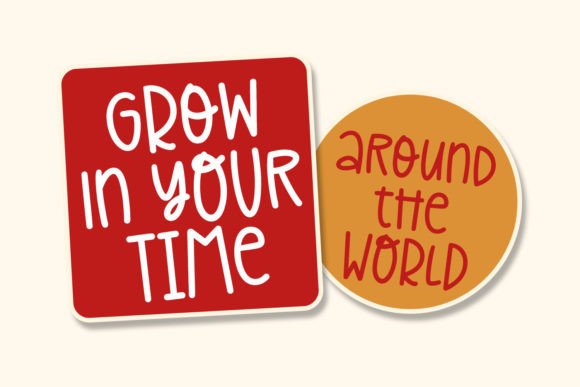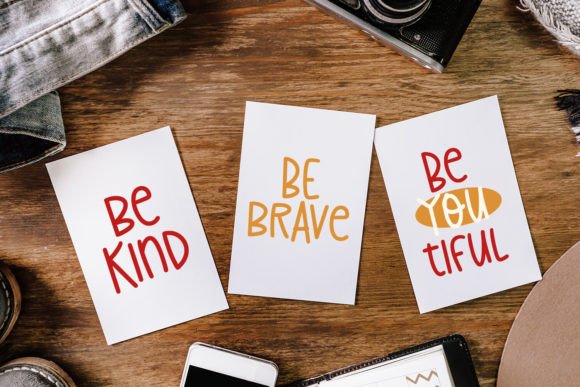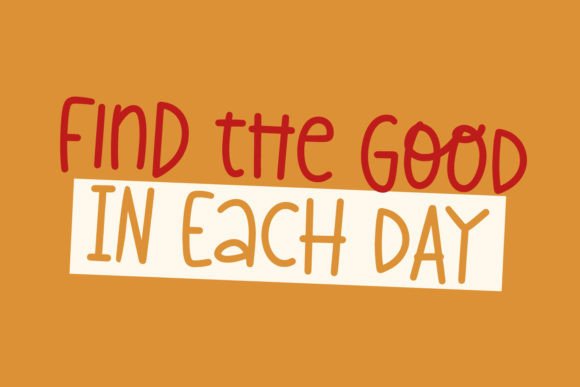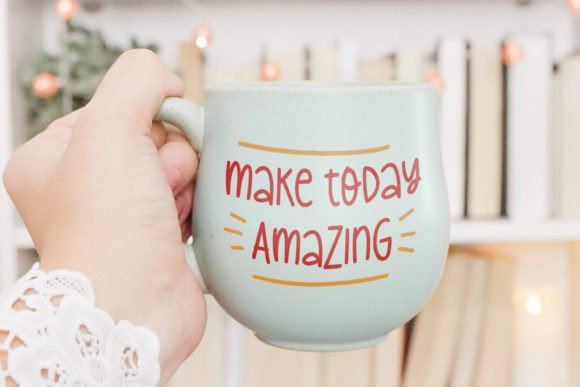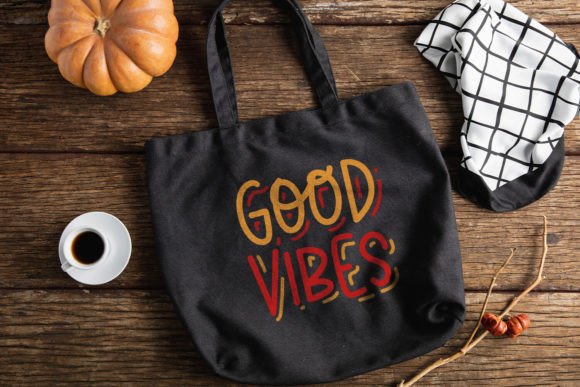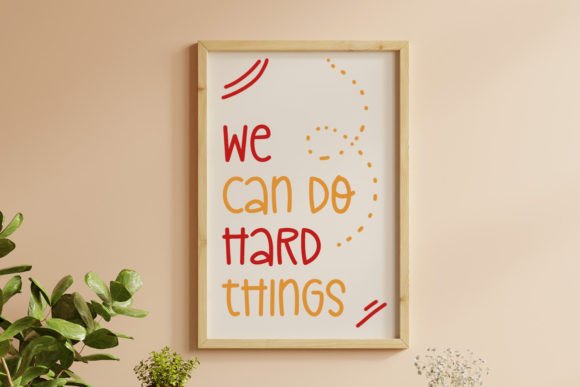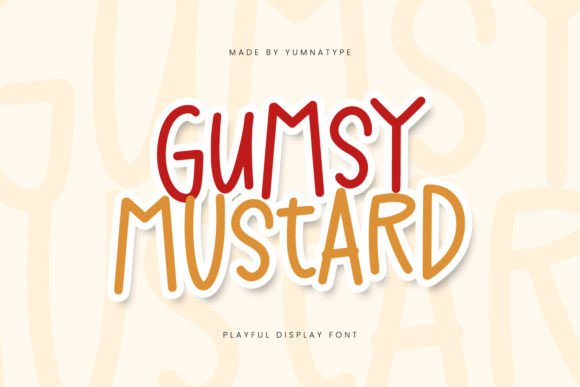
Gumsy Mustard Font: Add a Playful Touch to Your Designs
Are you looking for a font that can bring a dash of playfulness and whimsy to your designs? Look no further than the Gumsy Mustard font. This charming display font is perfect for designers and crafters who want to add a light-hearted touch to their projects. In this article, we’ll take a closer look at the Gumsy Mustard font, its features, and how you can use it to elevate your designs.
What is Gumsy Mustard Font?
Gumsy Mustard is a delightful display font that boasts a playful and carefree vibe. Its lightweight and low-contrast design make it an excellent choice for designers who want to create eye-catching and inviting visuals. The font’s simplicity is its greatest strength, making it perfect for use in a variety of design projects, from branding and advertising to packaging and crafting.
Key Features of Gumsy Mustard Font
So, what makes Gumsy Mustard font so special? Here are some of its key features:
- Lightweight design: Gumsy Mustard has a delicate and airy feel that makes it perfect for use in designs where you want to add a touch of elegance and sophistication.
- Low contrast: The font’s low contrast design ensures that it remains clear and legible, even at smaller sizes.
- Constant letter proportions: The font’s consistent letter proportions create a harmonious and balanced look that’s pleasing to the eye.
- Playful and whimsical: Gumsy Mustard has a playful and carefree vibe that’s perfect for designers who want to add a dash of personality to their designs.
How to Use Gumsy Mustard Font in Your Designs
Now that we’ve covered the features of Gumsy Mustard font, let’s talk about how you can use it in your designs. Here are some ideas to get you started:
- Branding and advertising: Use Gumsy Mustard font to create eye-catching logos, posters, and advertisements that showcase your brand’s playful personality.
- Packaging design: Add a touch of whimsy to your product packaging with Gumsy Mustard font. It’s perfect for use on labels, tags, and other packaging materials.
- Crafting and DIY projects: Gumsy Mustard font is perfect for use in crafting and DIY projects, such as handmade cards, gift tags, and other paper crafts.
- Digital design: Use Gumsy Mustard font in your digital designs, such as social media graphics, blog posts, and website headers.
Tips for Getting the Most Out of Gumsy Mustard Font
Here are some tips for getting the most out of Gumsy Mustard font:
- Use it as a display font: Gumsy Mustard font is designed to be used as a display font, so use it to add emphasis and personality to your designs.
- Experiment with colors: Gumsy Mustard font looks great in a variety of colors, so don’t be afraid to experiment and find the perfect hue for your design.
- Pair it with other fonts: Gumsy Mustard font pairs well with other fonts, so try combining it with a serif or sans-serif font to create visual interest.
In conclusion, Gumsy Mustard font is a charming display font that’s perfect for designers and crafters who want to add a playful and light-hearted touch to their designs. Its lightweight and low-contrast design make it an excellent choice for use in a variety of design projects. With its constant letter proportions and harmonious look, Gumsy Mustard font is sure to become a favorite in your design arsenal.